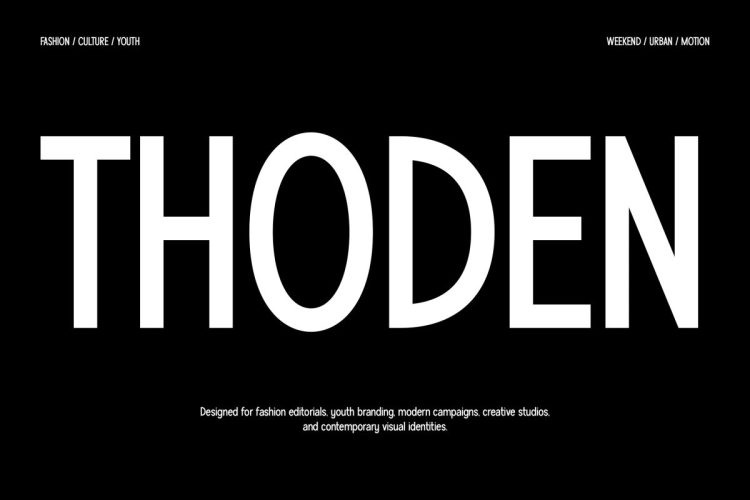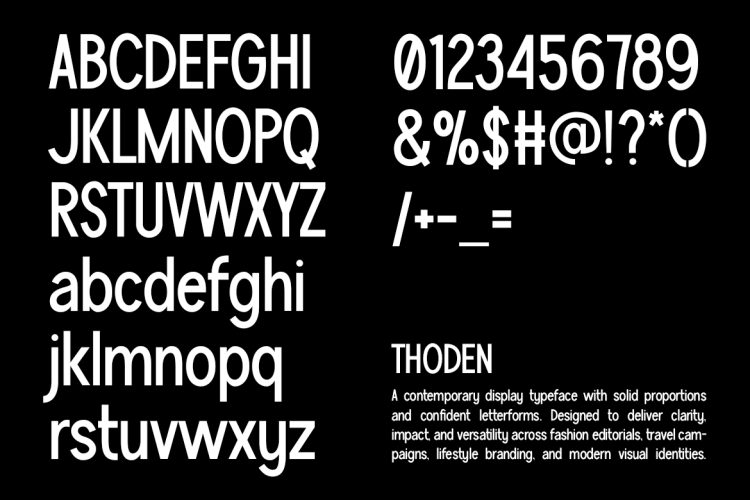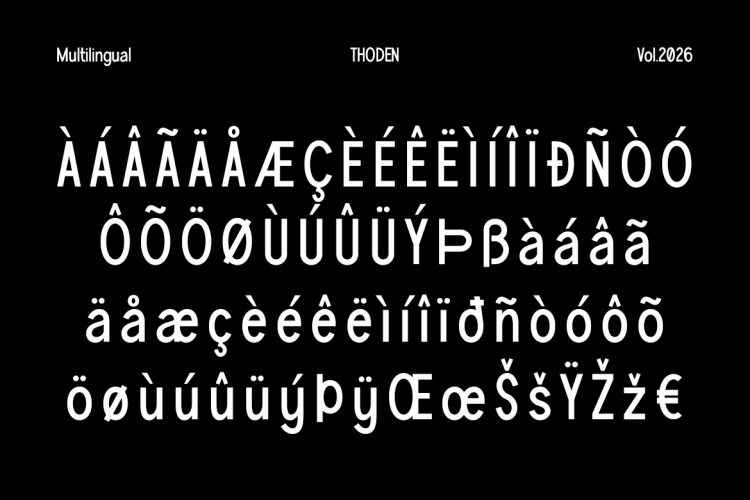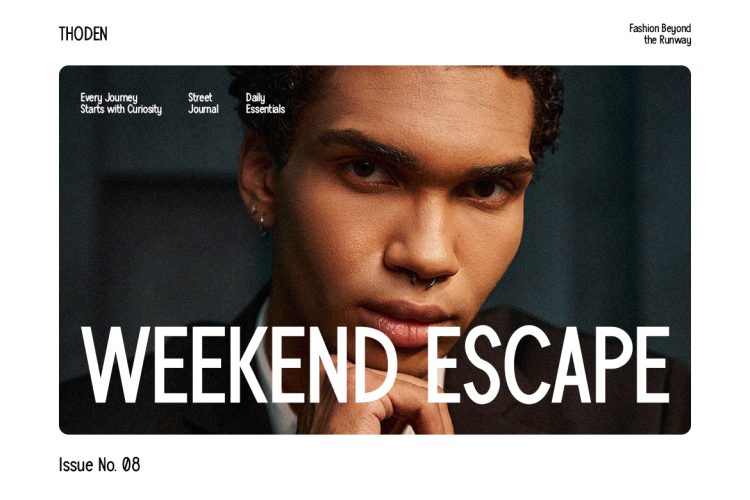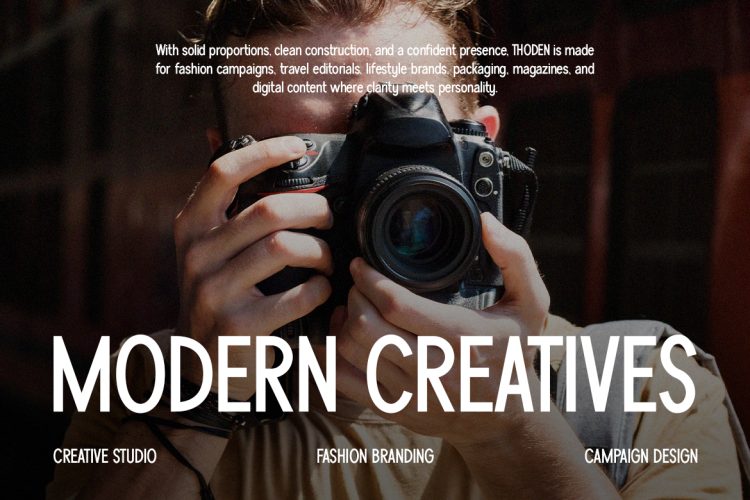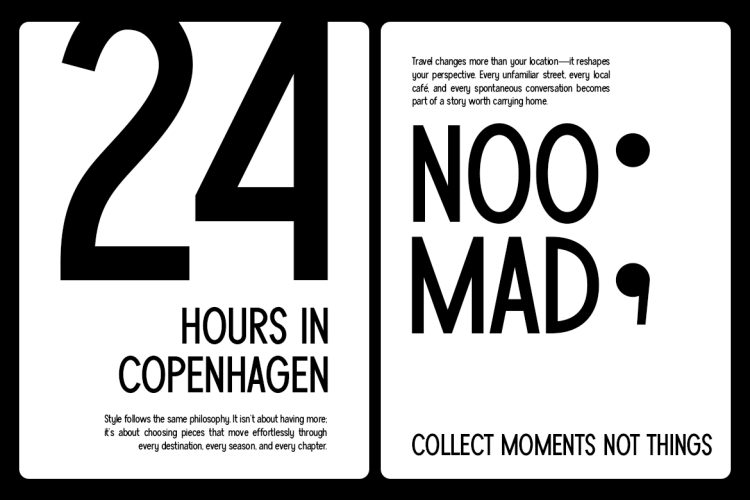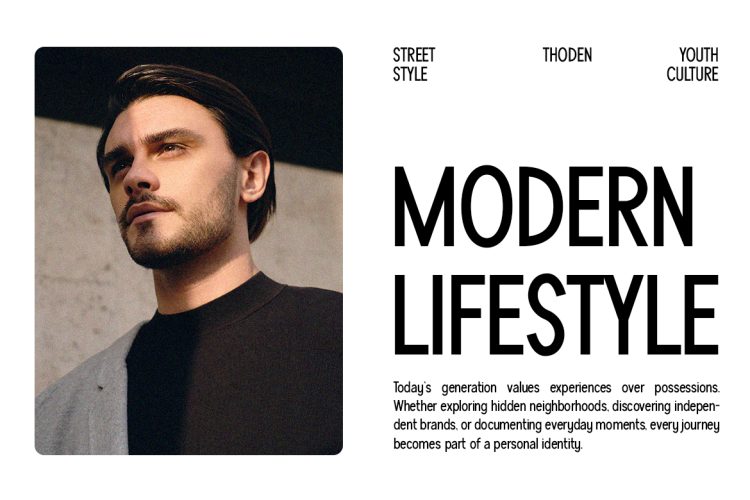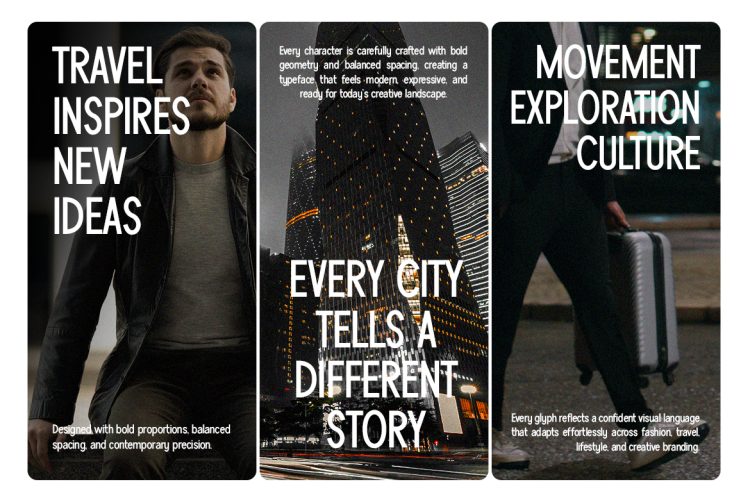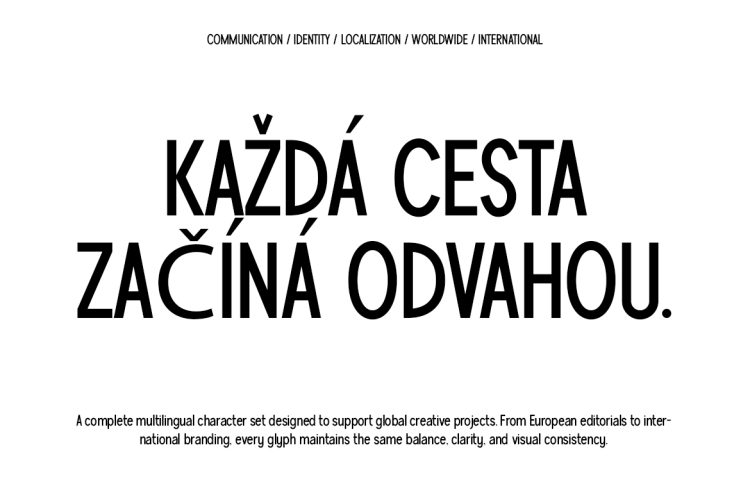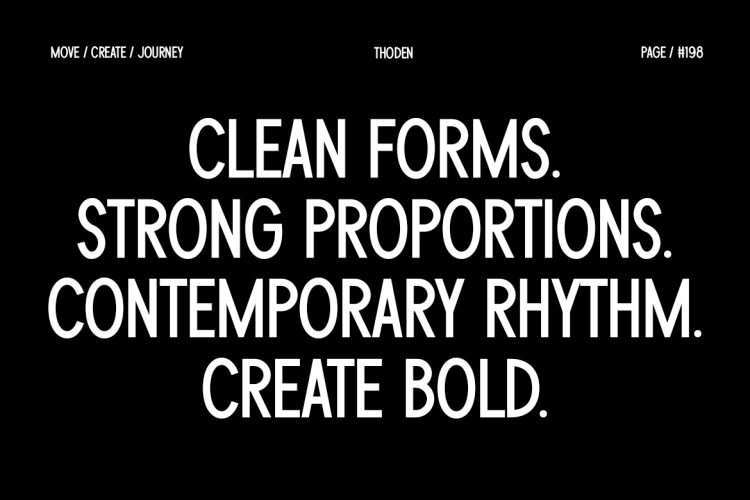
Modern Font THODEN โ Precision Typography for Bold Editorials & Creative Branding
Modern Font THODEN is a contemporary display typeface that proves simplicity can be the strongest design statement. Instead of relying on decorative details, THODEN embraces clean geometry, balanced proportions, and confident vertical forms to create a striking visual identity. Moreover, its minimalist construction delivers a sharp architectural aesthetic that feels fresh, modern, and highly versatile. As a result, every headline becomes clear, commanding, and effortlessly stylish. At the same time, its streamlined design ensures excellent readability across both digital and print media. Furthermore, with Multilingual Support for 67 languages, THODEN helps modern brands communicate consistently with audiences around the globe.
Modern Font THODEN Built for Modern Visionaries
Modern Font THODEN is created for designers who appreciate clarity, precision, and purposeful design. Not only does it create impactful headlines, but it also strengthens visual branding with a clean contemporary voice. In addition, its versatile appearance fits creative agencies, editorial magazines, architecture studios, travel campaigns, technology startups, fashion lookbooks, lifestyle branding, website headers, posters, and social media content. Likewise, its minimalist style blends effortlessly with modern layouts. Meanwhile, its multilingual character set supports international communication without compromising aesthetics. Most importantly, THODEN gives every project a refined and confident visual language that remains timeless.
- Editorial magazines and publications
- Modern branding and visual identity
- Architecture and interior studios
- Fashion lookbooks
- Technology startups
- Travel and lifestyle campaigns
- Website hero sections
- Posters and social media graphics
Design with Purpose
If you’re looking for typography that feels clean, bold, and intelligently designed, THODEN is ready to become your creative essential. Furthermore, its modern character instantly adds sophistication to every composition. Consequently, your branding becomes more professional, memorable, and globally relevant. Finally, choose Modern Font THODEN today and create designs that communicate confidence through simplicity.